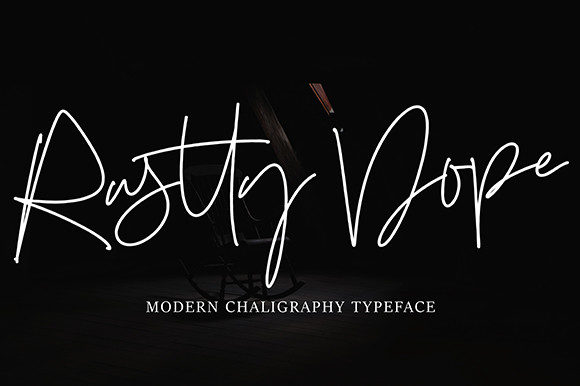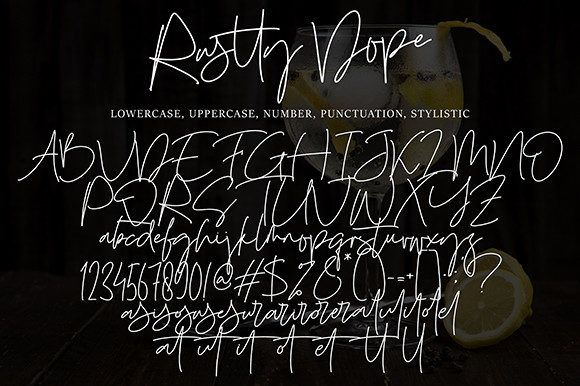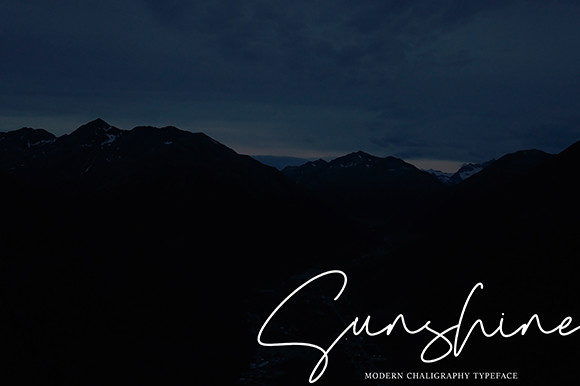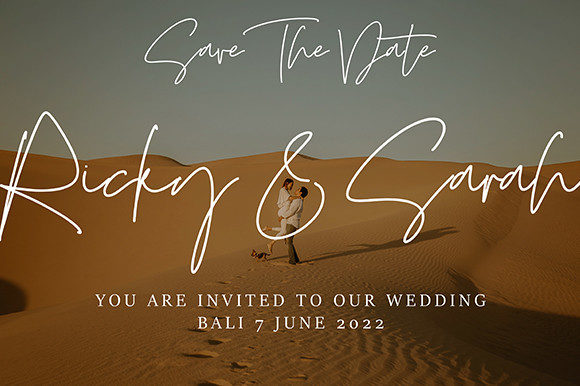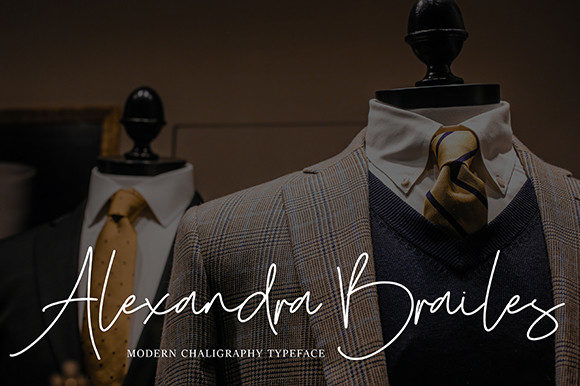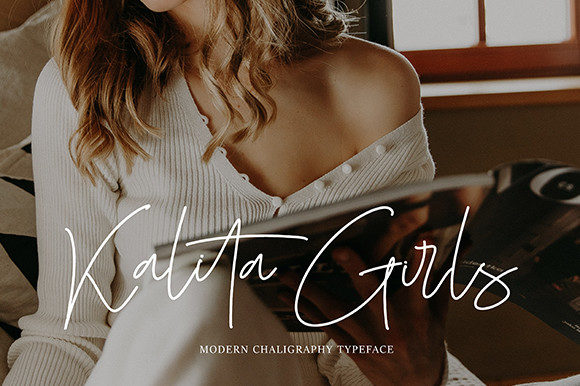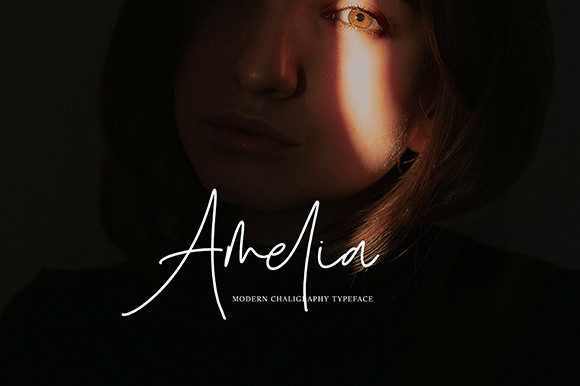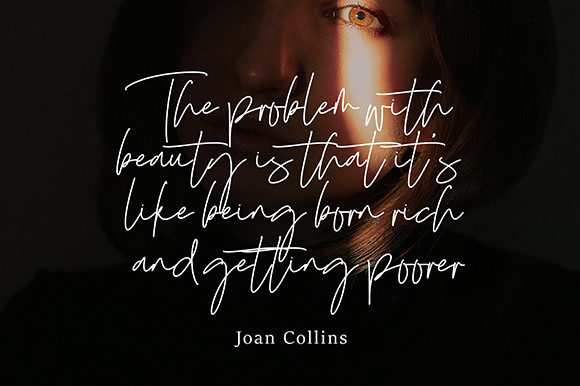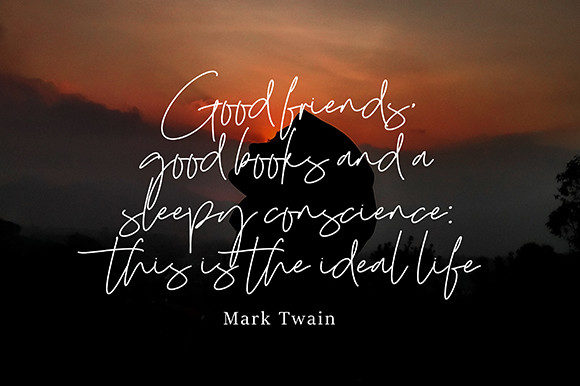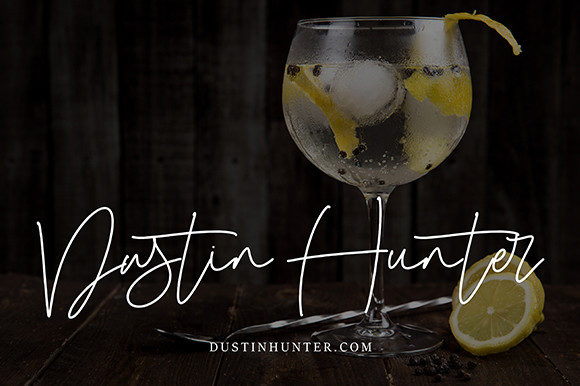
Rustty Dope Font
About Rustty Dope Font
Rustty Dope is a stylish and incredibly elegant script font. It looks stunning on wedding invitations, thank you cards, quotes, greeting cards, logos, business cards and every other design which needs a customized touch.